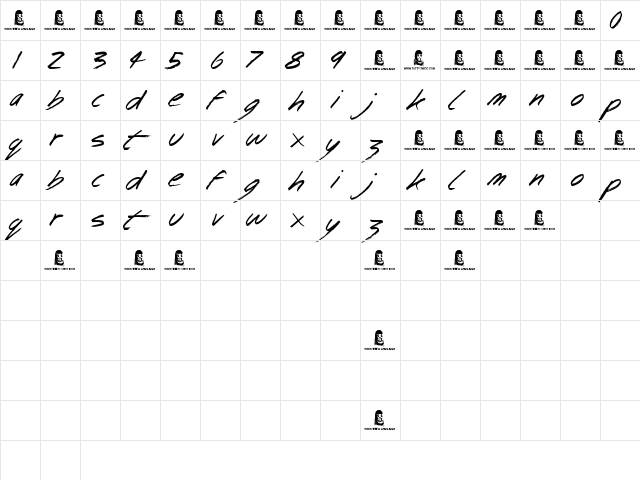
Lingo Regular Font Preview
Lingo Regular
Lingo Regular Font Details
Design Context for Lingo Typeface
Lingo is a composed and adaptable typeface that performs quietly and consistently across a wide range of design contexts.